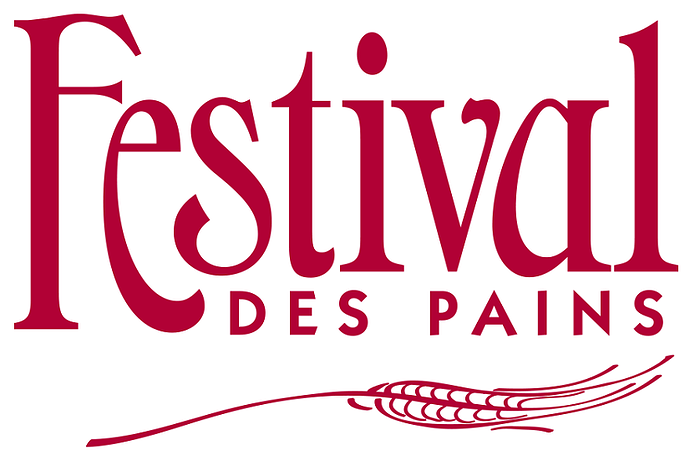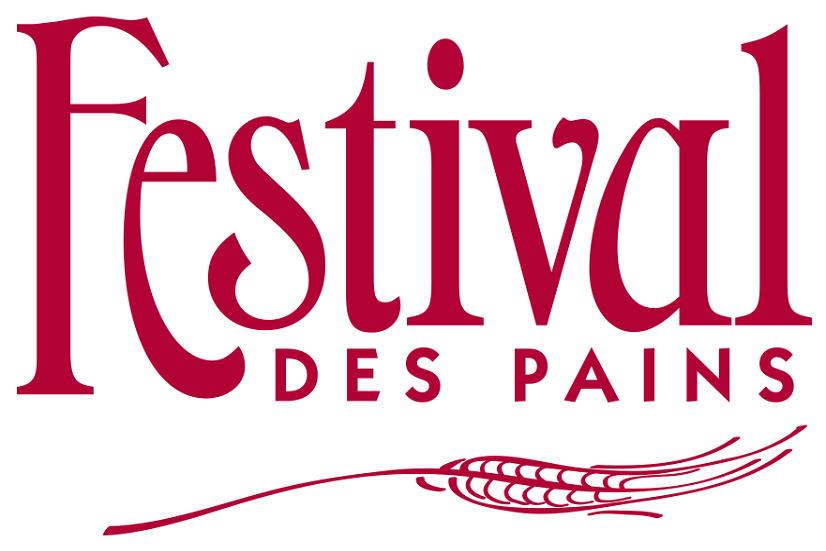
I have read that the Paris Tours cycling race was held this year starting from the town of La Loupe.
I found the following use of an unusual font in La Loupe.
The words L’INSTITUT are displayed in an ornate font that seems to be a blend of Roman and Script. Please note the serifs.
There are some more letters from what appears to be the same font to the left.
Moving within Google Streetview to next position to the right and then rotating within that view leftwards displays the sign again with both the first T and the second T unclipped, though this time the third T is clipped.
Looking at the words L’INSTITUT using the link in the first post in this thread and then turning to the right within the panorama and then moving 12 Google Streetview places forward, taking the left fork wherever one is offered a choice of routes, one arrives outside a Boulanger (Baker) Pâtissier (Confectioner) in Rue de la Gare.
The following is one view at that particular streetview place.
There is a rather stylish fairly bold script font used in red against a cream background and white against a red background, with yellow used to style elegantly the main colour of the shop.
Zooming-in there is a sign attached to the building with the message “Festival des Pains”, which Translation Plus 10.0 translates as Festival of Breads.
Searching for Festival des Pains at http://www.google.com produced the following link.
The Google search also provided a link to several images of logos around the Festival des Pains theme.
It is not clear to me at present whether it is a brand logo or a certification of quality logo or maybe something else. Does anyone know please?